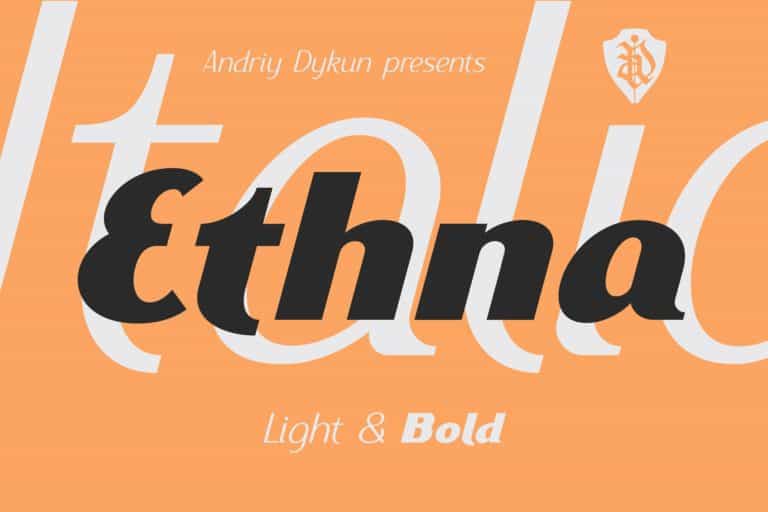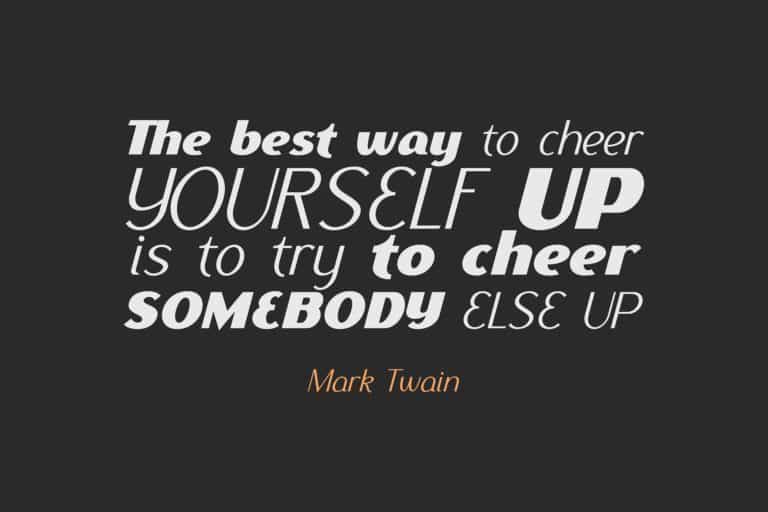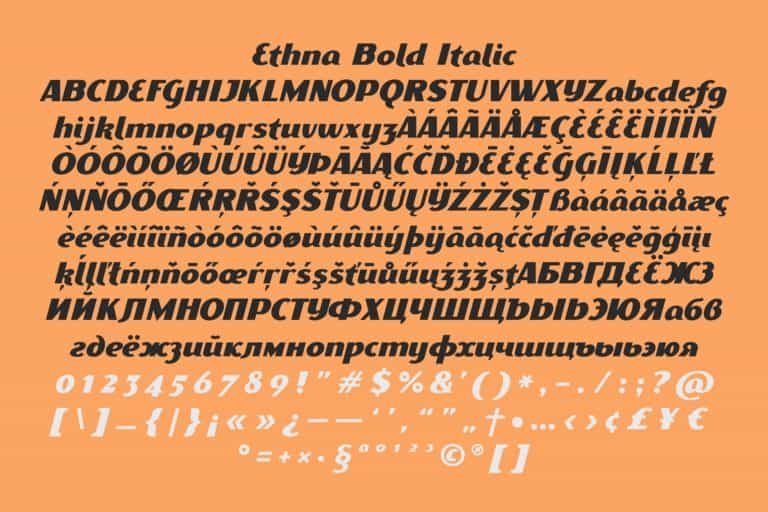
Introducing Ethna. The font is developed by maculinc, this is a premium font that can be bought on creativemarket but it was great to know that today you can get it for free. It is the perfect blend of present and past looks. The font is composed of uppercase and lowercase letters as well as multilingual support. The font is perfect as individual words and also in the full-text blocks. Besides, it can be used for creating bright captions and memorable logos too.